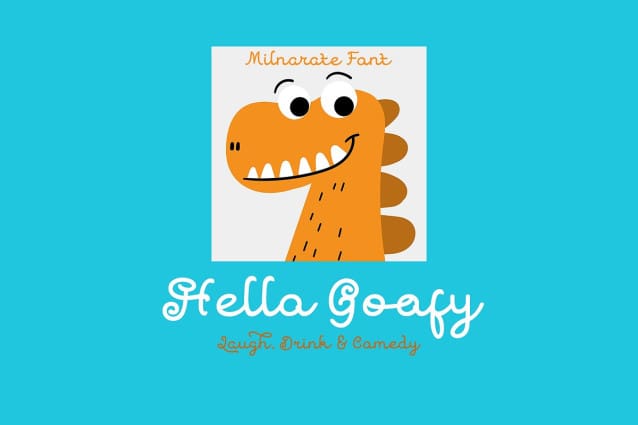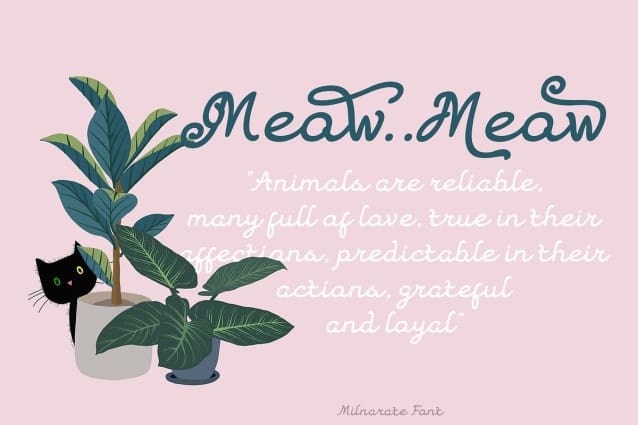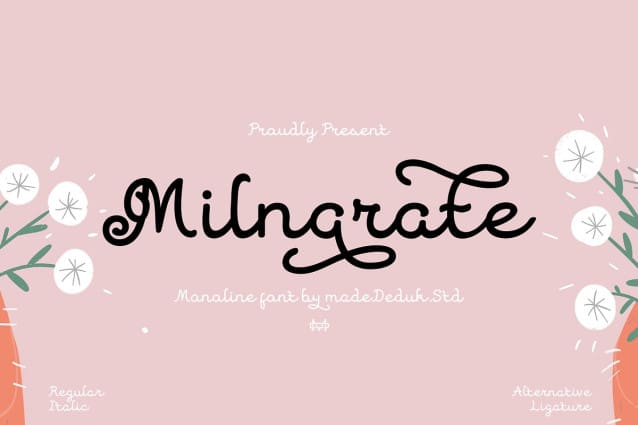
Milnarate Font
Milnarate Font is a monoline script typeface that features elegantly crafted glyphs, allowing for the creation of visually appealing and straightforward words. This font includes a curly style, offering numerous alternates and ligatures to enhance your designs. Its simplicity and refinement make it perfect for a variety of applications, including branding, product packaging, invitations, quotes, headlines, labels, posters, logos, and any advertising needs. Whether you’re working on digital content or printed materials, this versatile font is designed to elevate your projects with its unique charm and character. Feature – off, ttf, woff file – Uppercase & Lowercase – Number & Symbol – International Glyphs – Multilingual support – Alternative – Ligature Thanks so much for checking out my shop and feel free to drop us a message any time and follow my shop for upcoming updates. or Shoot me on email at: Hope you enjoy it.